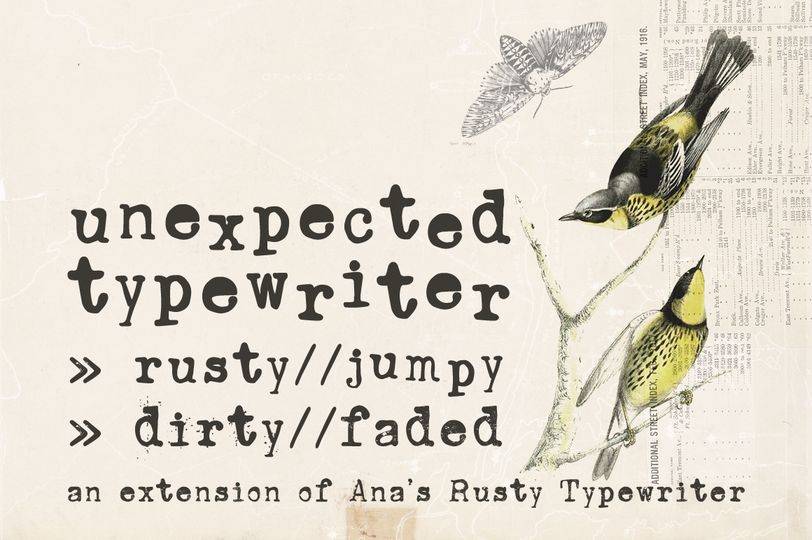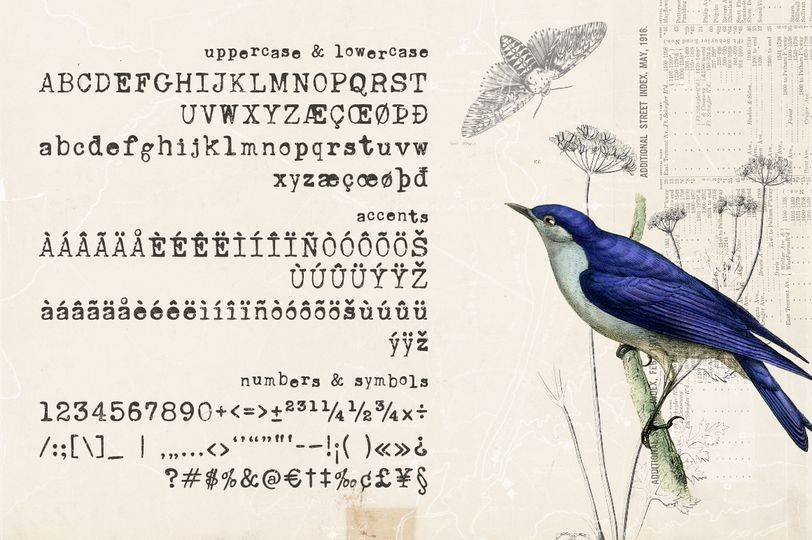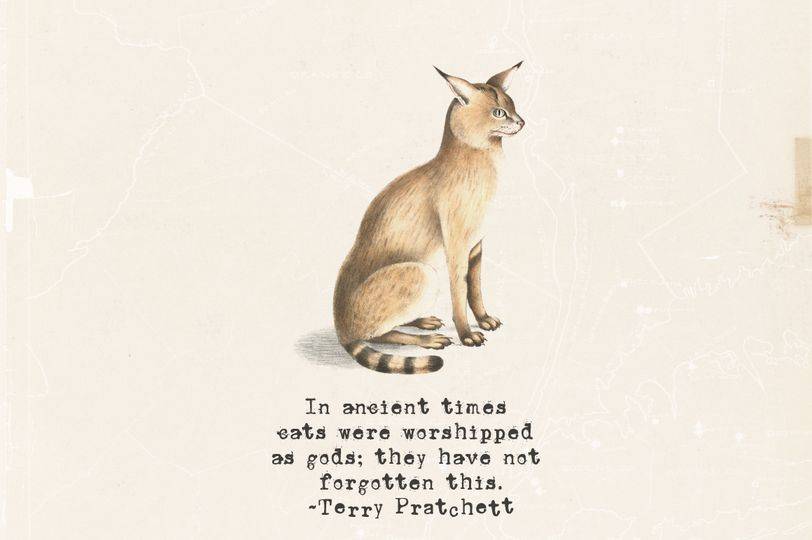
Rusty Typewriter is a charming serif font that mimics the imperfect, worn look of vintage typewriter text with a slightly irregular and textured style. Its medium weight and normal width, combined with quirky details like single-story lowercase 'a' and 'g' and distinctive serif shapes, give it a nostalgic and approachable personality perfect for creative projects seeking an authentic retro or handmade feel. This font works beautifully in branding, editorial designs, and posters where a touch of vintage character and warmth is desired.
Rusty Typewriter Font
About Rusty Typewriter Font
| Font family | Rusty Typewriter Font |
| Release date | 2018-05-08 |
| Designer | Ana Parracho |